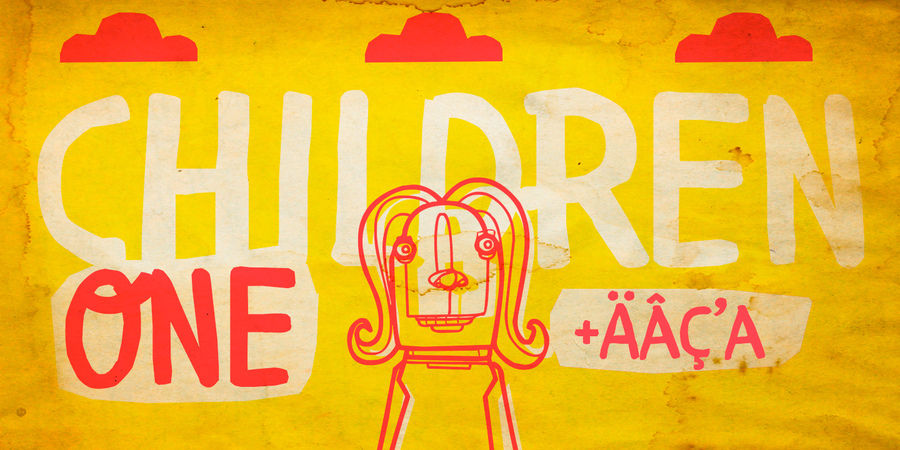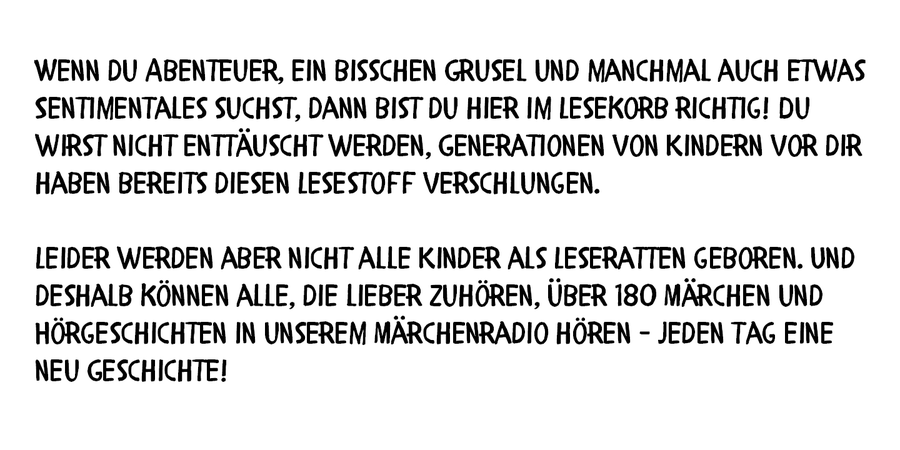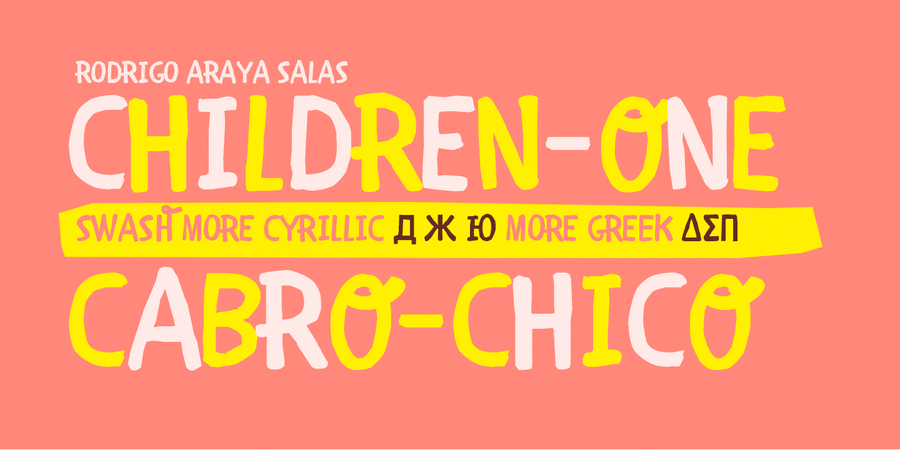
Children One is a friendly playful handwritten font with a bold street mood, supporting many European languages, as well as Cyrillic and Greek. This font has rich possibilities in the form of alternative glyphs, swashes and rare ligatures. Typeface was Designed by Rodrigo Araya Salas in 2014.
kind, good-natured, street, benevolent, domestic, craft brewed, informal, cartoonish, manual, naive, man-made, handicraft, home-made, tall, original, alive, distinctive, playful, notable, home, expressive, slovenly, agile, restless, funny, cute, interesting, creative, nice, Artisanal, natural, careless, vernacular, brumal, snow